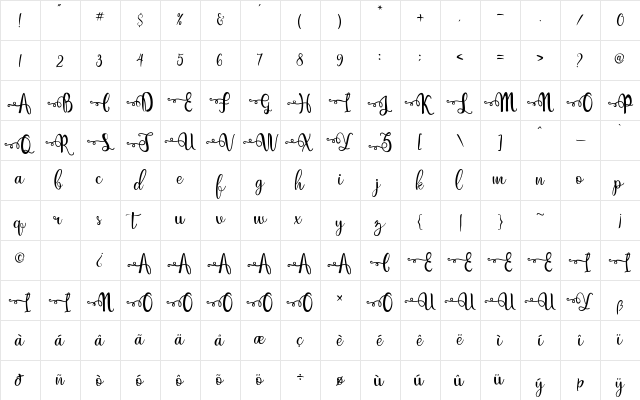
Just Swirls Regular
| Foundry | Hans Co |
| Designer | Burhan Afif |
Design Context for Just Swirls Typeface
Just Swirls is built around its visual character rather than neutral utility — its distinctive forms are designed to make an impression at display sizes.
Font Pairing: Pair with a clean neutral sans-serif for body copy to let Just Swirls's character lead without overwhelming the composition.
Pro Tip: Treat Just Swirls as the centrepiece of your typographic hierarchy. One strong heading set in a decorative face can carry an entire layout.